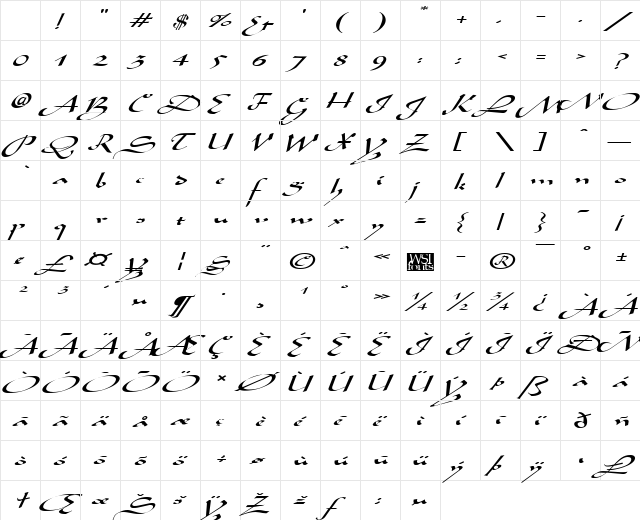
Complete AladdinExpanded Italic glyph index. Displaying only characters natively supported by AladdinExpanded Italic font.
AladdinExpanded is a composed and adaptable typeface that performs quietly and consistently across a wide range of design contexts. The slanted form adds forward momentum and visual energy.
Pro Tip: Use AladdinExpanded for emphasis, pull quotes, and subheadings where its slanted energy can add rhythm to the layout.